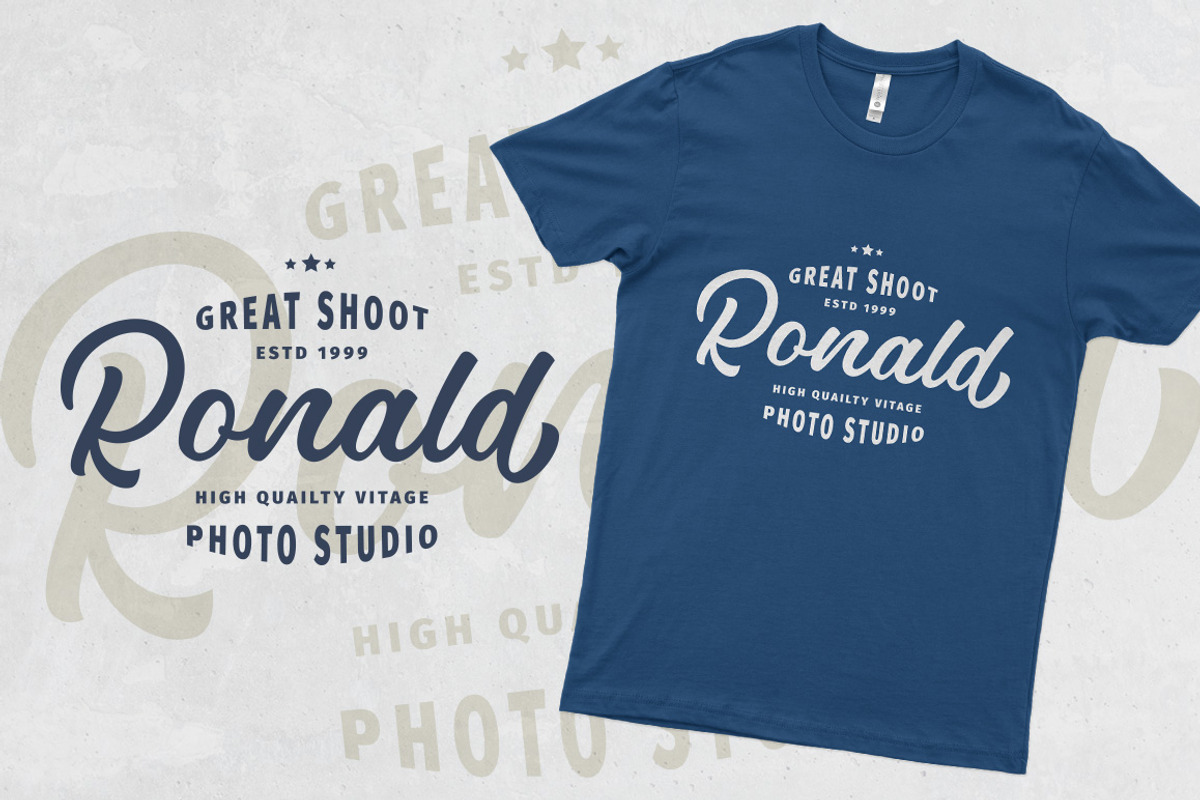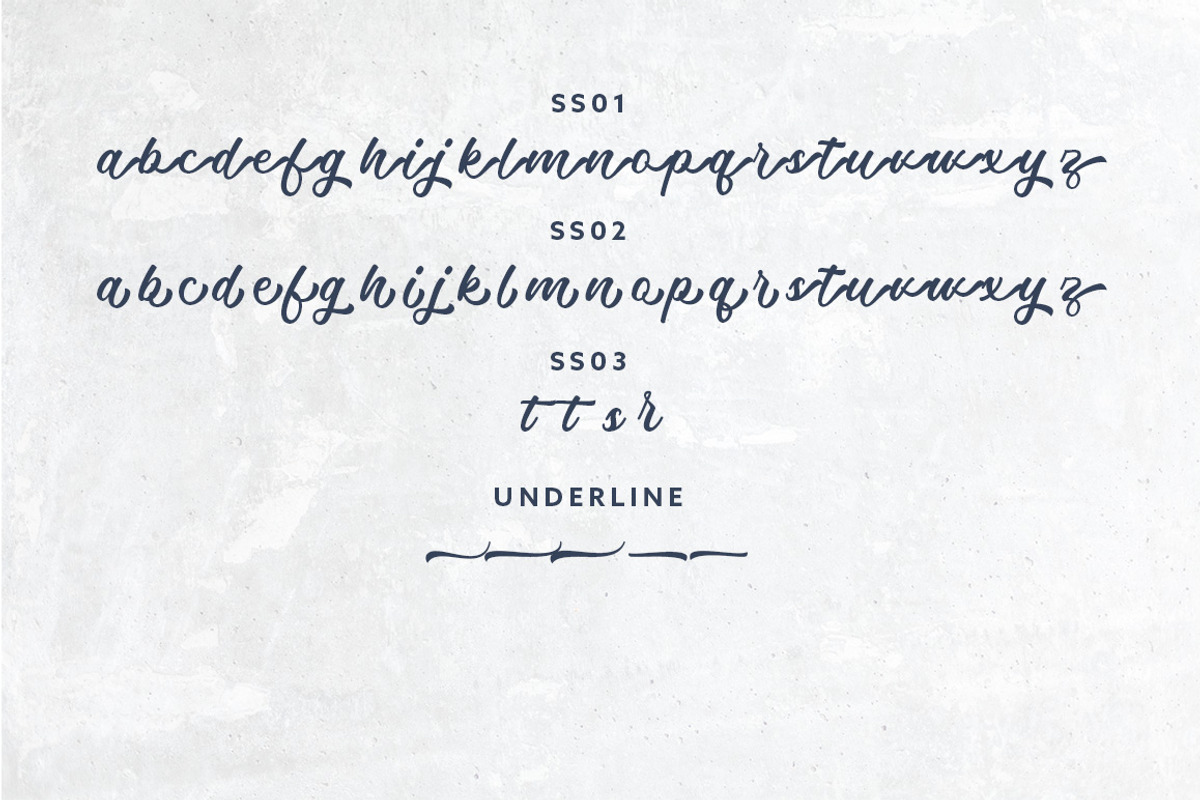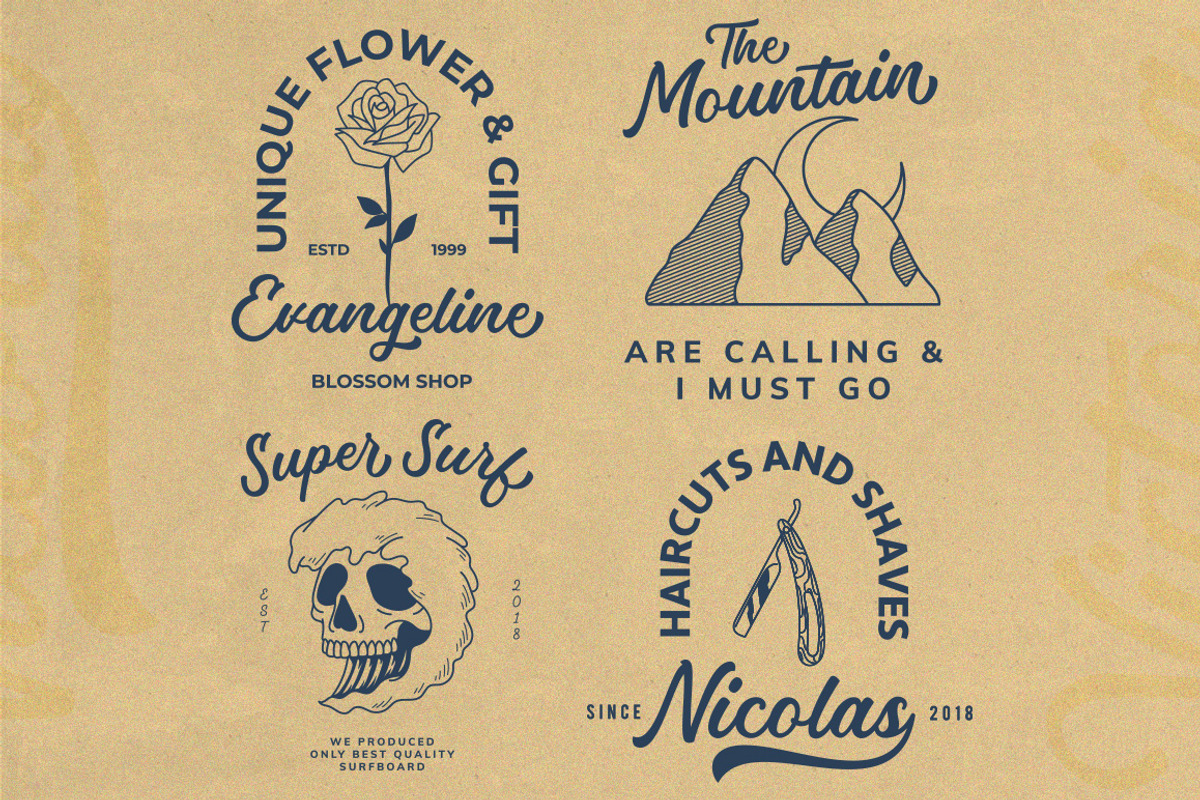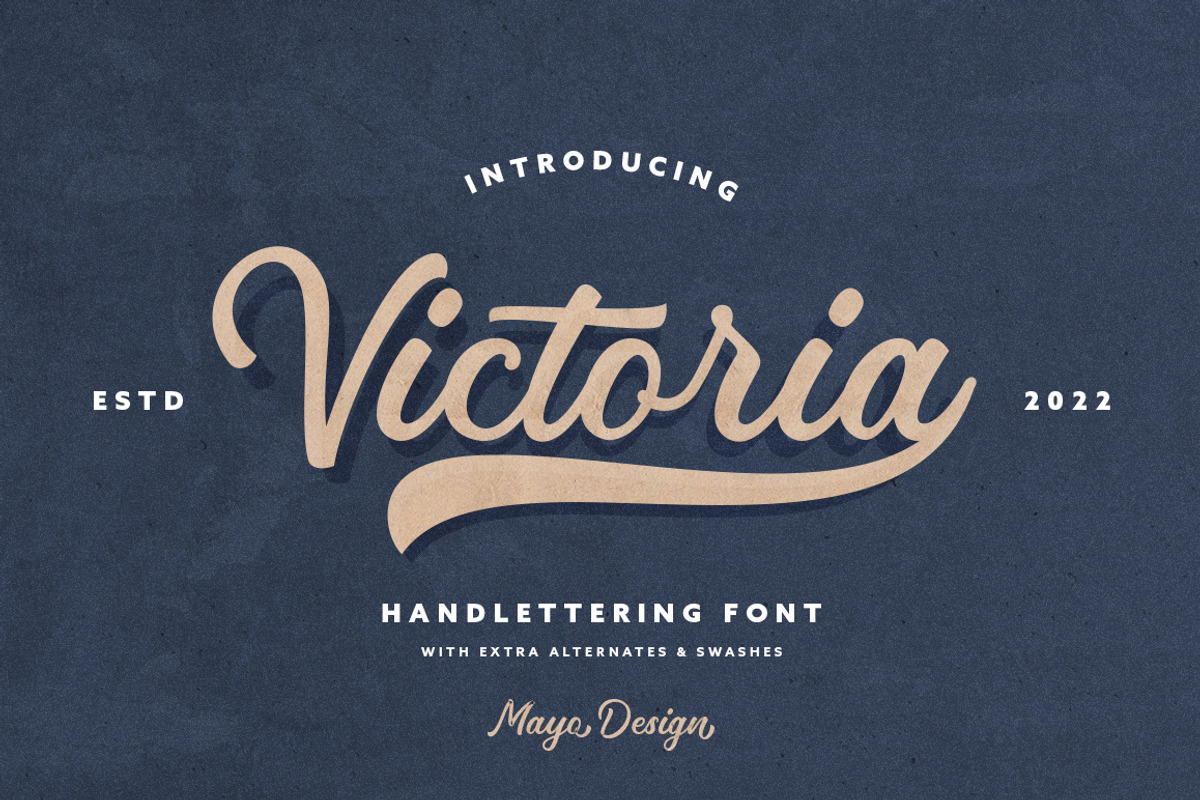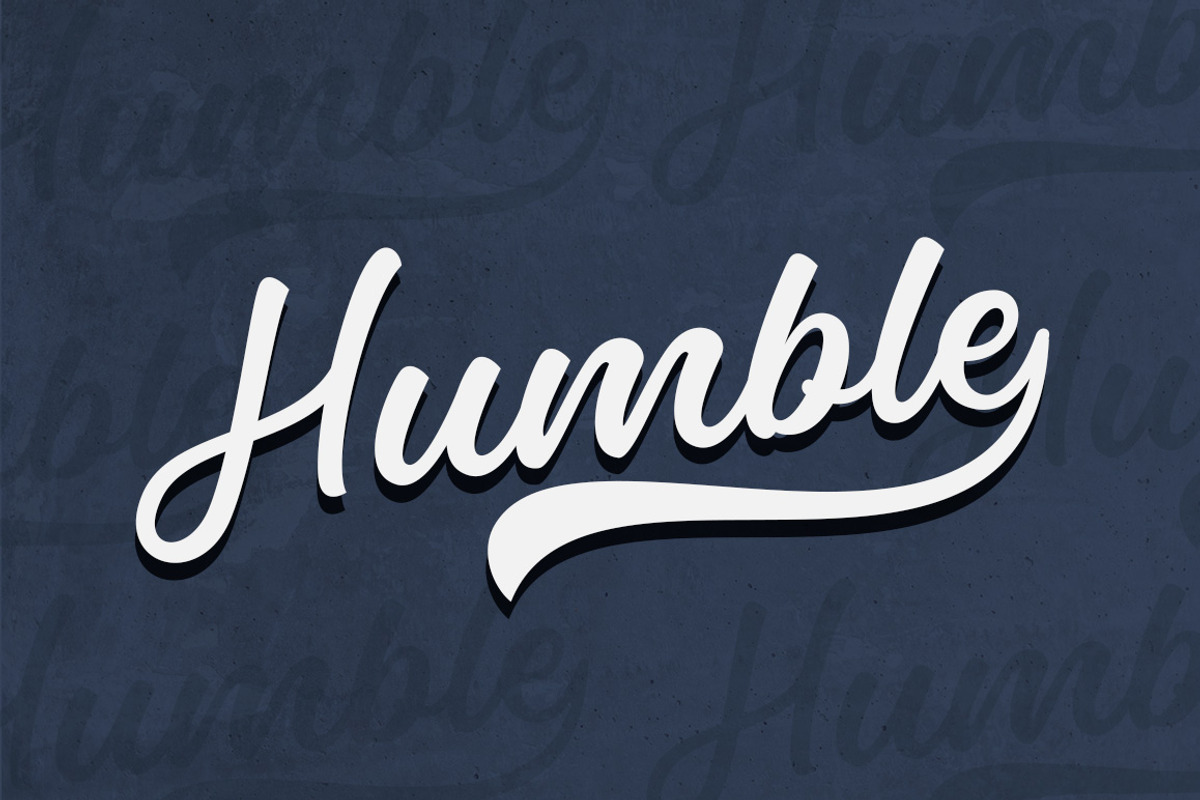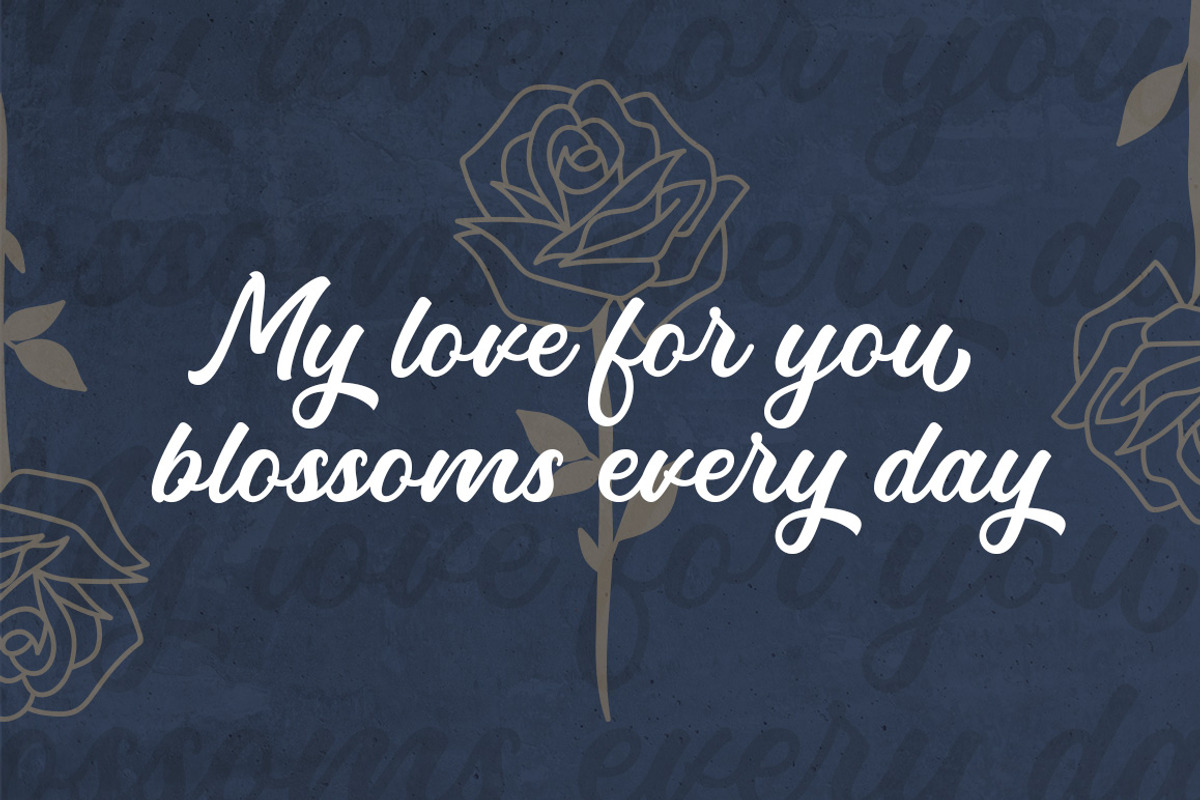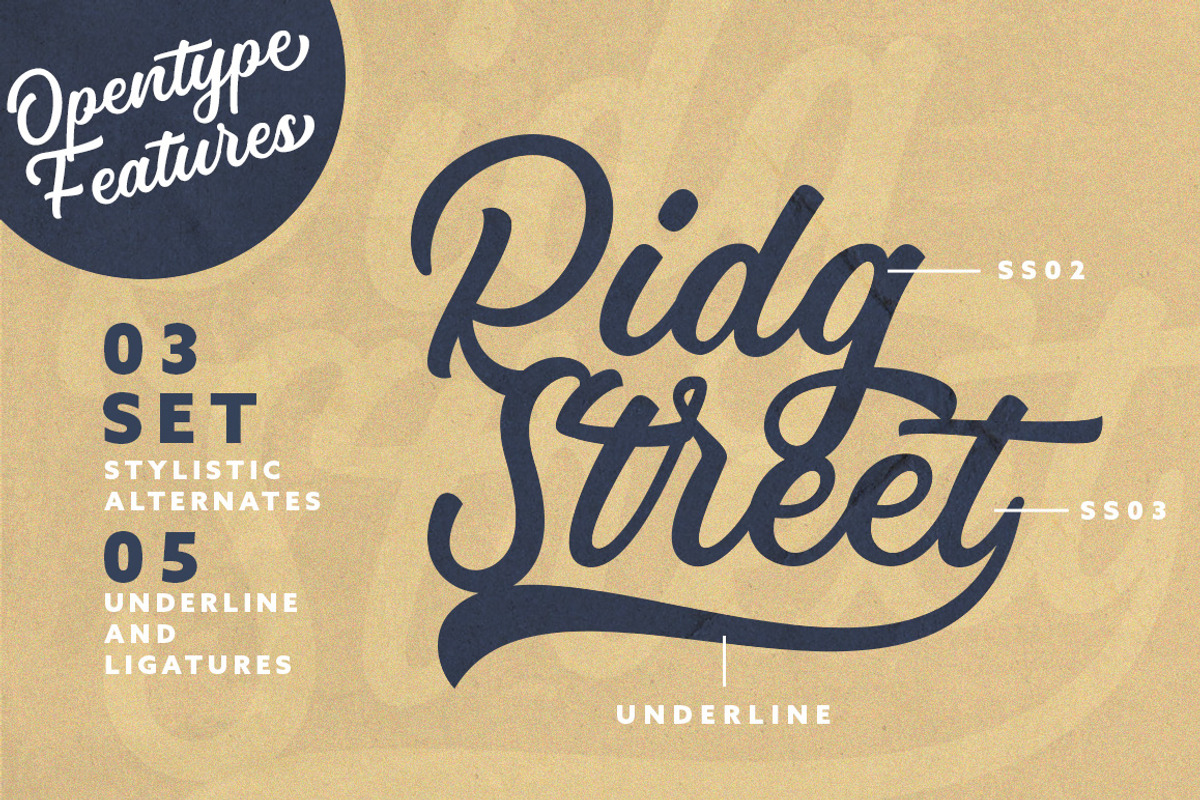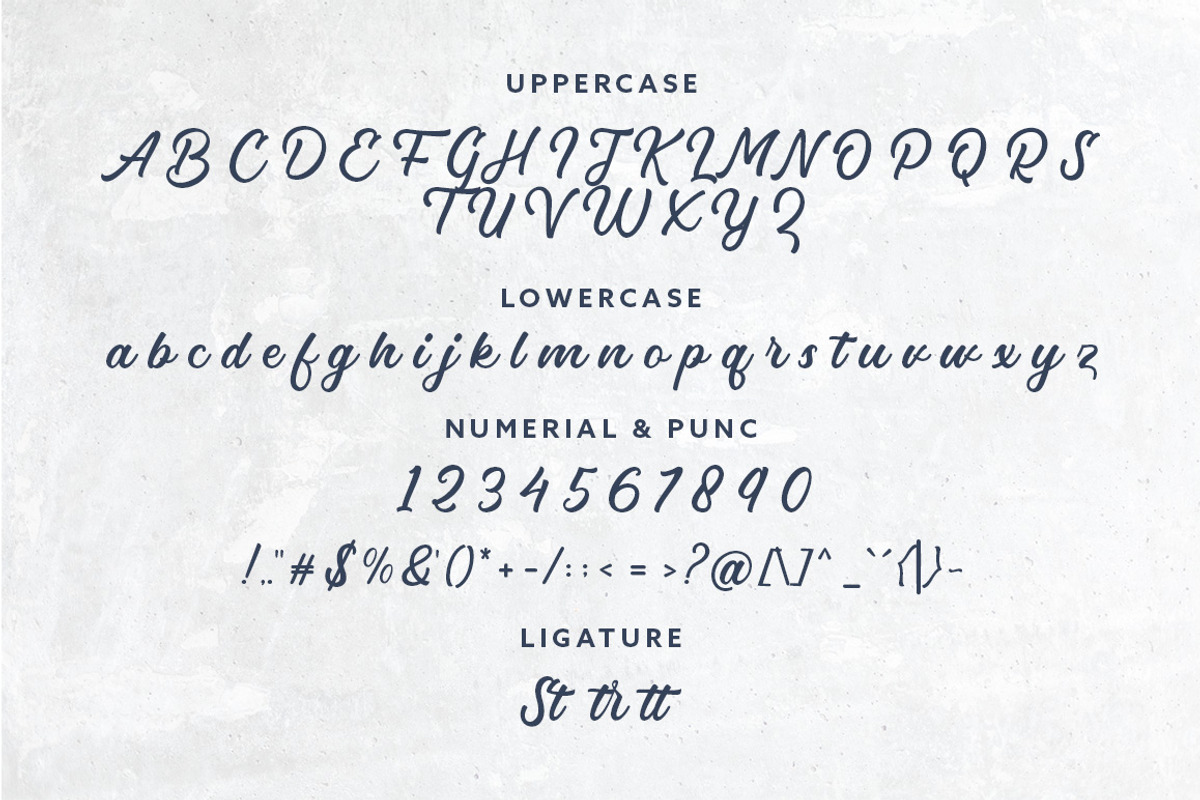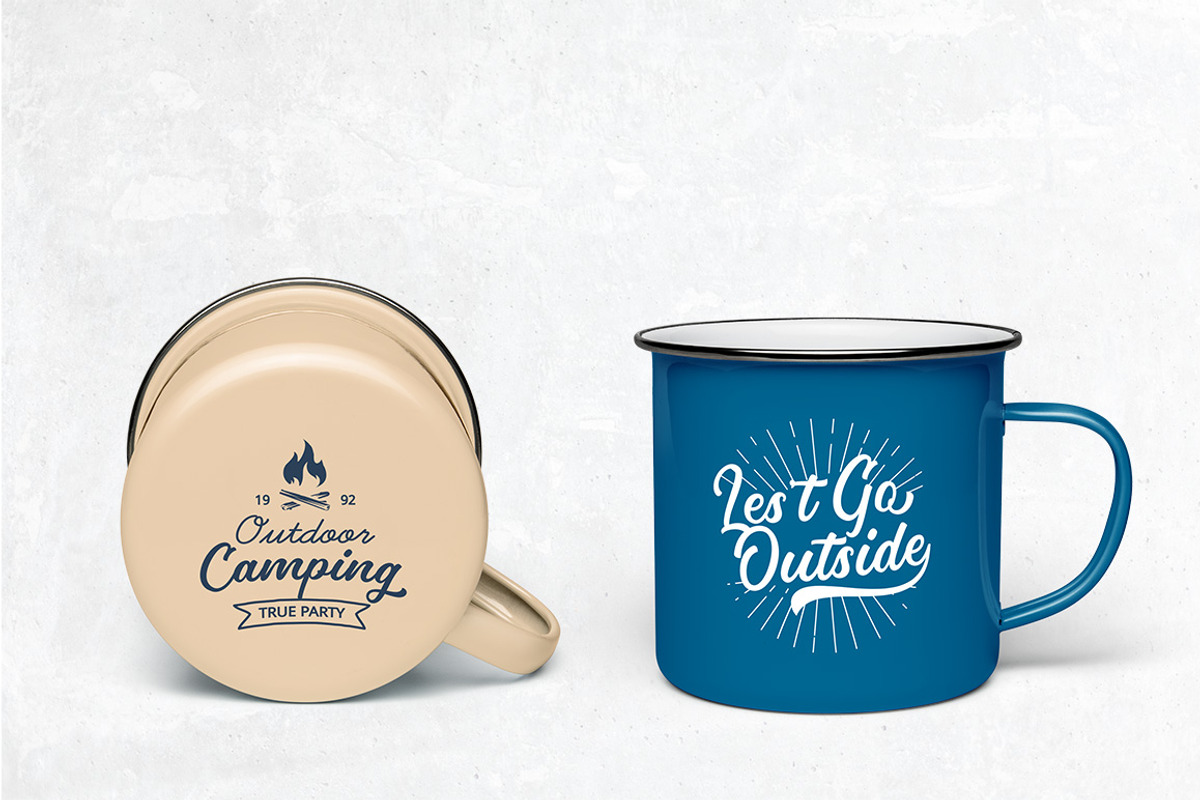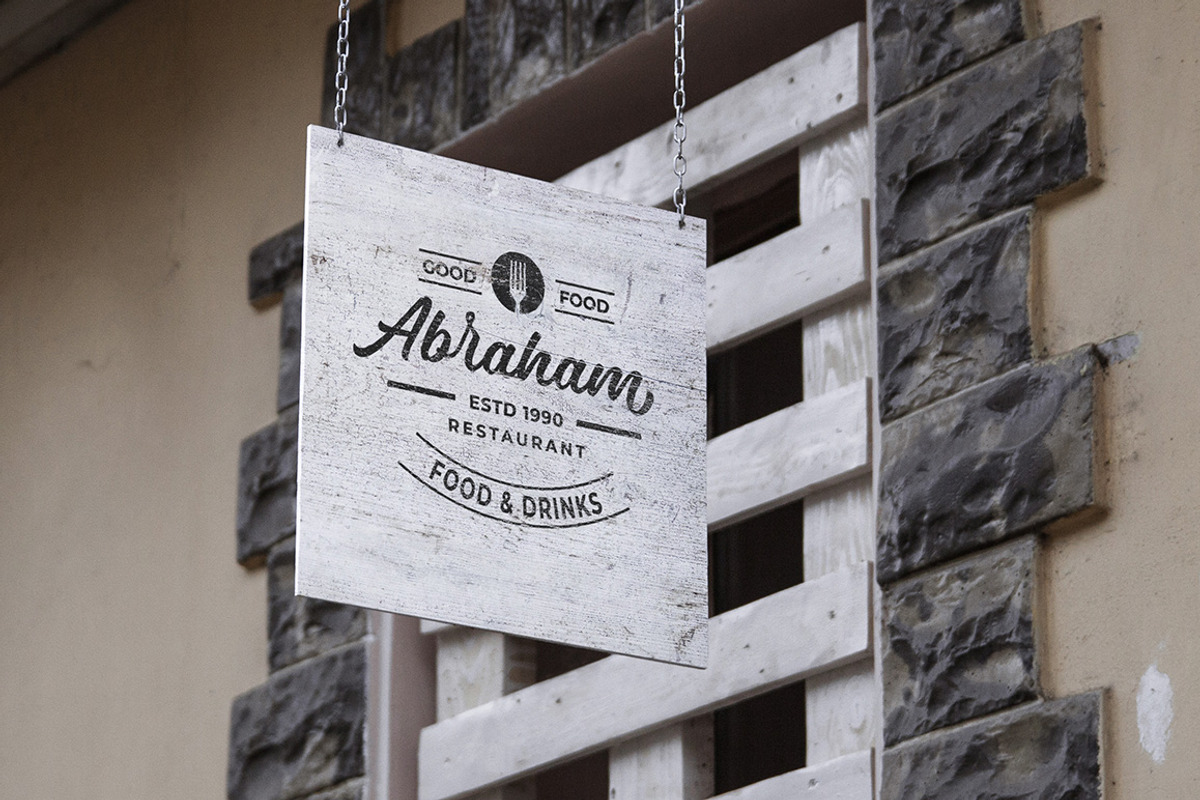
Victoria Handlettering Font
The victoria font is script font with opentype features. You can use this font in a wide range of works such as logos, branding, covers, posters, quotes, product packaging, merchandise, social media and much more!
- Alternate Glyphs
- Multilingual Language